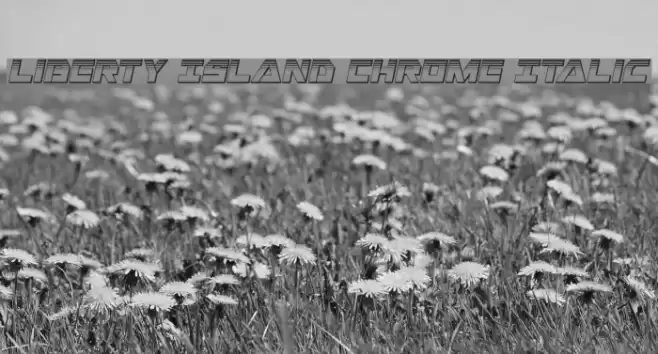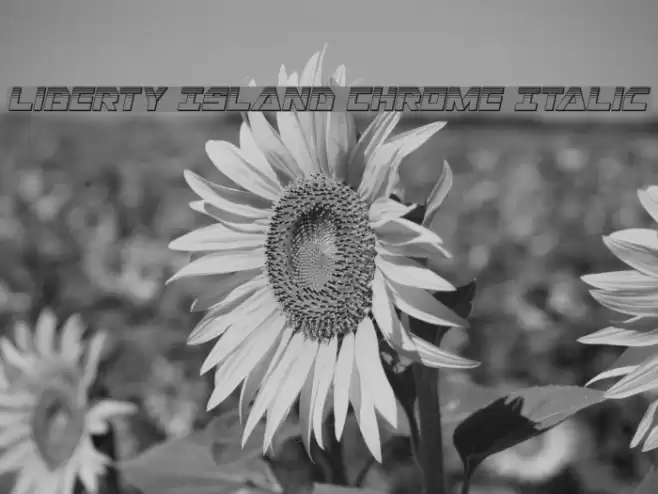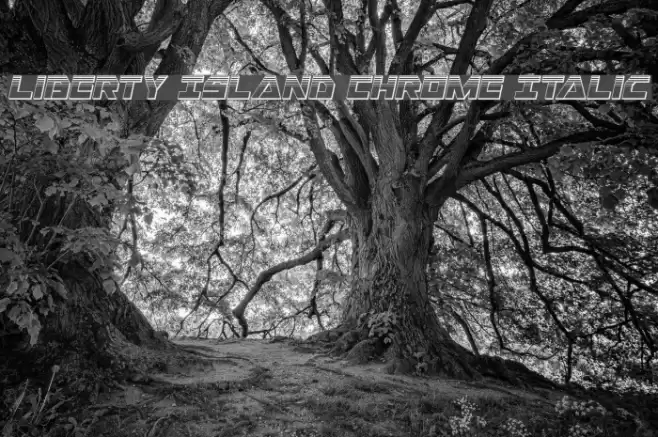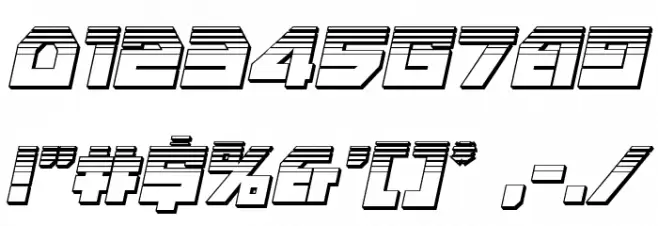
Liberty Island Chrome Italic Font
Liberty Island Chrome Italic Description
This font features a bold, futuristic design with a three-dimensional, chrome-like appearance. The letters are italicized, giving them a dynamic and forward-leaning stance. Each character is outlined with a double line, enhancing the metallic effect and adding depth. The geometric shapes and sharp angles contribute to a modern, industrial feel. The font is highly stylized, making it suitable for attention-grabbing headlines or logos that require a strong visual impact. The uppercase letters are consistent in height, while the numbers and special characters maintain the same bold, outlined style.
A bold, italicized, chrome-like font with a futuristic and industrial design from Uncategorized fonts.
- Proposed Projects: Ideal for sci-fi themed projects, technology branding, video game titles, or any design needing a modern, industrial look.
- Overall Style: Futuristic, Industrial